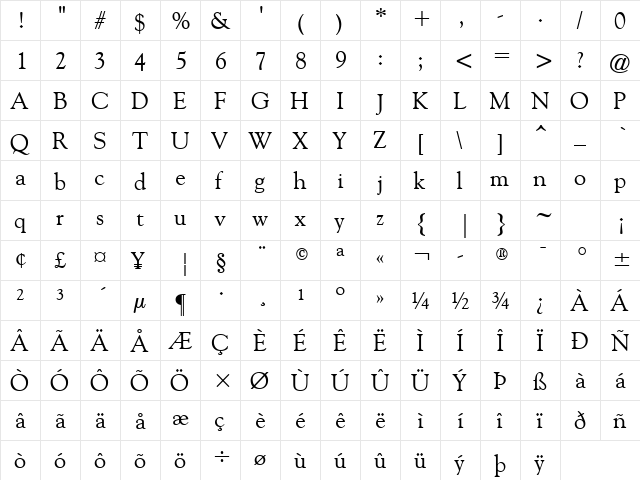
Goudy Old Style CG ATT Regular
Design Context for Goudy Old Style CG ATT Typeface
Goudy Old Style CG ATT is a composed and adaptable typeface that performs quietly and consistently across a wide range of design contexts.